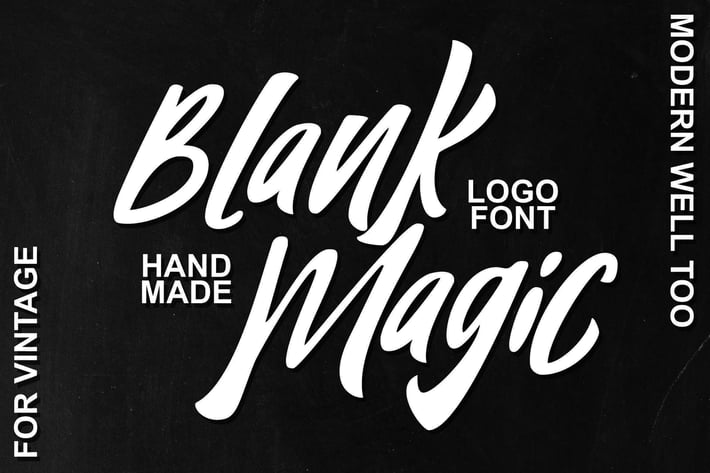
Blank Magic Logotype Font
Blank magic is a simple logotype font. The logotype font is usually perfect for youth design, like apparel logo, music logo, but it also good for any commercial advertisement